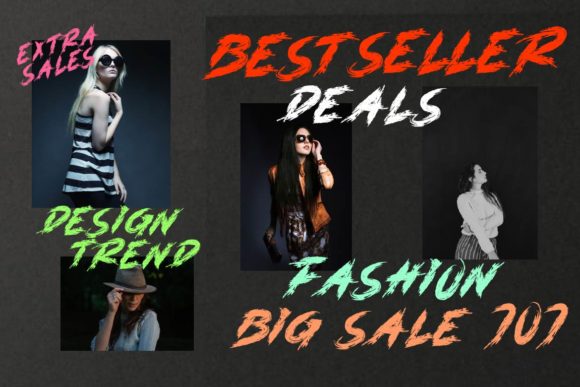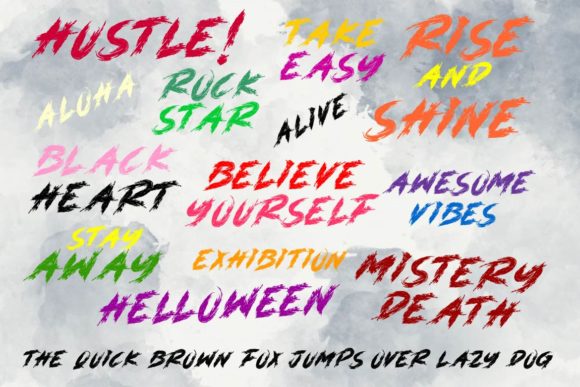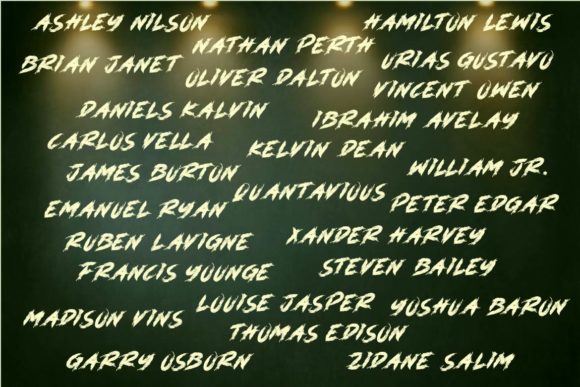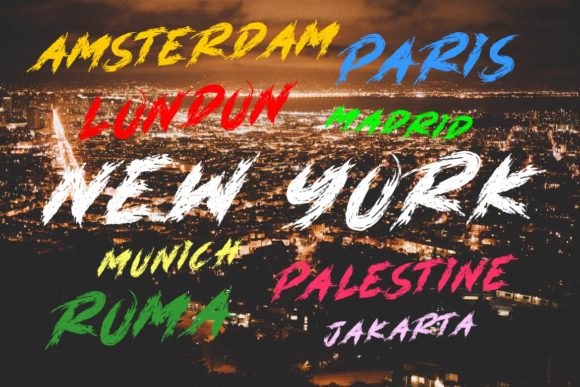
Introduction to Ranger Zone Font
Have you ever stumbled upon a design element that just sparks creativity and makes you want to dive in headfirst? For many designers, this moment is like finding a hidden treasure that adds that extra special something to a project. For me, that moment came when I discovered the Ranger Zone Font – a stunning, high-quality font that’s as versatile as it is authentic.
What I love about the Ranger Zone Font is its unique pairing of a brush pen and pencil, which gives it an endearing and transparent background that makes it perfect for any creative project. Whether you’re working on a web design, a print campaign, or even a moving image project, this font is sure to add a touch of sophistication and style.
Ranger Zone Font
- High-quality font design with a unique, modern aesthetic.
- Features a transparent background, making it ideal for creative projects that require a clean and minimalist look.
- Designed to be highly legible, with a clear and crisp font that is suitable for both on-screen and print use.
- Perfect for use in a variety of creative projects, including logos, branding, and digital art.
Honest Review: Ranger Zone Font
I recently had the opportunity to work with the Ranger Zone Font, and I must say it’s been a game-changer for my design projects. The font is incredibly versatile and perfect for any creative project that requires a bold, rugged touch.
- High quality design that exudes a sense of adventure and exploration
- Transparent background allows for seamless integration into any design
The Ranger Zone Font is perfect for designers who want to add a touch of the wild to their projects. Its unique design elements make it stand out from other fonts, and its high quality ensures that it will always look great, no matter the context.
- May not be suitable for projects that require a more subtle or delicate look
- Some users may find the font too bold or overwhelming
Overall, I’m extremely impressed with the Ranger Zone Font. It’s a fantastic design resource that’s perfect for designers who want to add a touch of adventure to their projects.
The Ranger Zone Font is perfect for creative projects, such as logo designs, business cards, and social media graphics. It’s also great for presentations and documents that require a professional touch. The high-quality design resource is versatile and can be used in a variety of design scenarios.